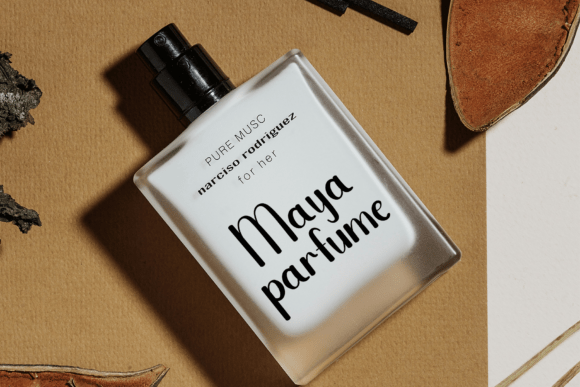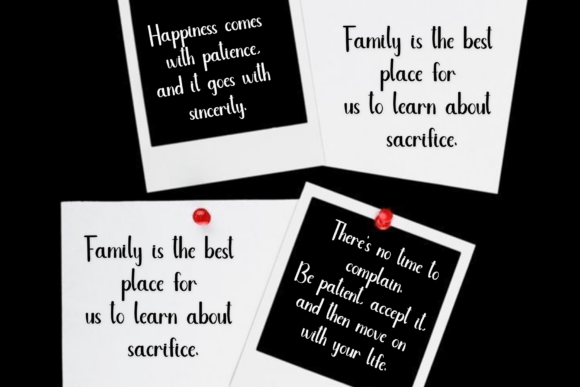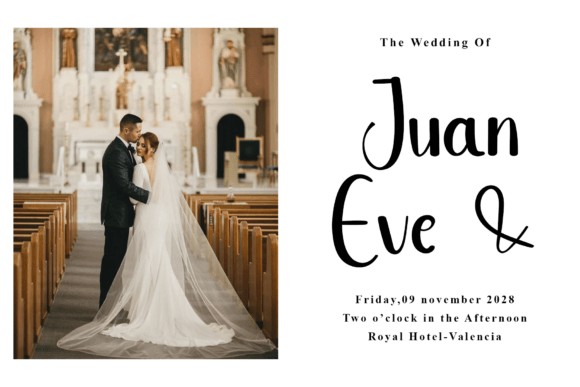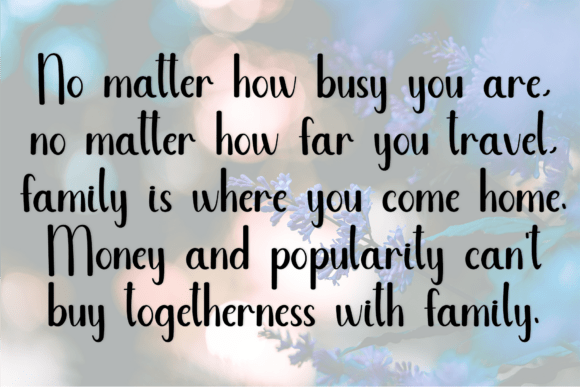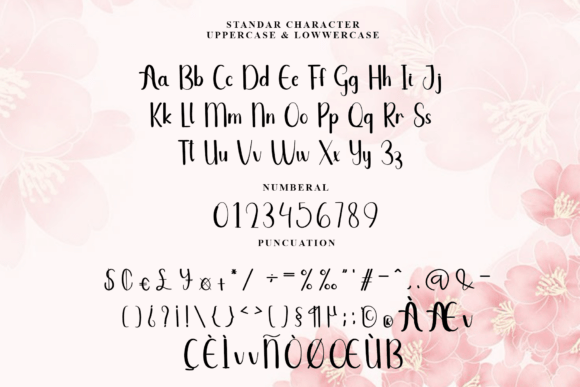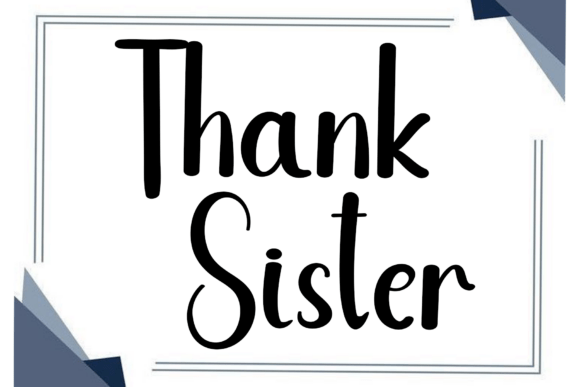
Audition Font: Elevate Your Designs with a Touch of Elegance and Whimsy
In the world of typography, fonts play a crucial role in conveying the tone and personality of a brand or design. For those seeking a typeface that exudes elegance, femininity, and a touch of playfulness, the Audition Font is an excellent choice. This modern handwritten script font has been gaining popularity among designers and crafters for its unique blend of sophistication and charm.
The Characteristics of Audition Font
Audition Font is characterized by its slender, flowing lines, adorable small loops, and ligatures that give it a distinctly handwritten feel. The font’s design is a perfect balance of grace and subtlety, making it an ideal choice for designs that require a touch of elegance and refinement. The overall aesthetic of Audition Font is effortlessly chic and feminine, making it perfect for a wide range of applications.
Perfect for Delicate Branding and Designs
Audition Font is particularly well-suited for delicate branding, pet-themed merchandise, personalized stationery, and lifestyle blogs. Its gentle, graceful, and sweet touch makes it an excellent choice for designers and crafters looking to create visually appealing and engaging designs. Whether you’re looking to create a brand identity, packaging, or marketing materials, Audition Font is sure to make a lasting impression.
Key Features of Audition Font
- Graceful and Light Design: Audition Font features a slender and flowing design that gives it a distinctly modern and elegant feel.
- Handwritten Script Style: The font’s handwritten script style makes it perfect for designs that require a personal and authentic touch.
- Adorable Small Loops and Ligatures: The font’s small loops and ligatures add a touch of whimsy and playfulness, making it perfect for designs that require a bit of personality.
- Effortlessly Chic and Feminine: Audition Font’s overall aesthetic is effortlessly chic and feminine, making it perfect for designs that require a touch of elegance and sophistication.
Why Choose Audition Font?
There are many reasons why designers and crafters choose Audition Font for their designs. Here are a few:
- Unique and Professional: Audition Font is a unique and professional typeface that will help you stand out from the crowd.
- Versatile: The font is versatile and can be used for a wide range of applications, from branding and packaging to marketing materials and more.
- Easily Readable: Despite its elegant and refined design, Audition Font is easily readable, making it perfect for body text and headlines.
How to Use Audition Font in Your Designs
Using Audition Font in your designs is easy. Here are a few tips to get you started:
- Pair it with Other Fonts: Audition Font pairs well with other fonts, making it easy to create visually appealing and engaging designs.
- Use it for Headlines and Body Text: The font is suitable for both headlines and body text, making it a great choice for a wide range of applications.
- Experiment with Colors and Textures: Audition Font looks great in a variety of colors and textures, so don’t be afraid to experiment and find the perfect combination for your design.
In conclusion, Audition Font is a beautiful and elegant handwritten script font that is perfect for designers and crafters looking to add a touch of sophistication and whimsy to their designs. Its unique blend of refinement and playfulness makes it an excellent choice for delicate branding, pet-themed merchandise, personalized stationery, lifestyle blogs, and any design that requires a gentle, graceful, and appealingly sweet touch.
Whether you’re a seasoned designer or a crafter looking to create visually appealing designs, Audition Font is an excellent choice. With its versatility, readability, and unique aesthetic, it’s sure to become a staple in your design toolkit.